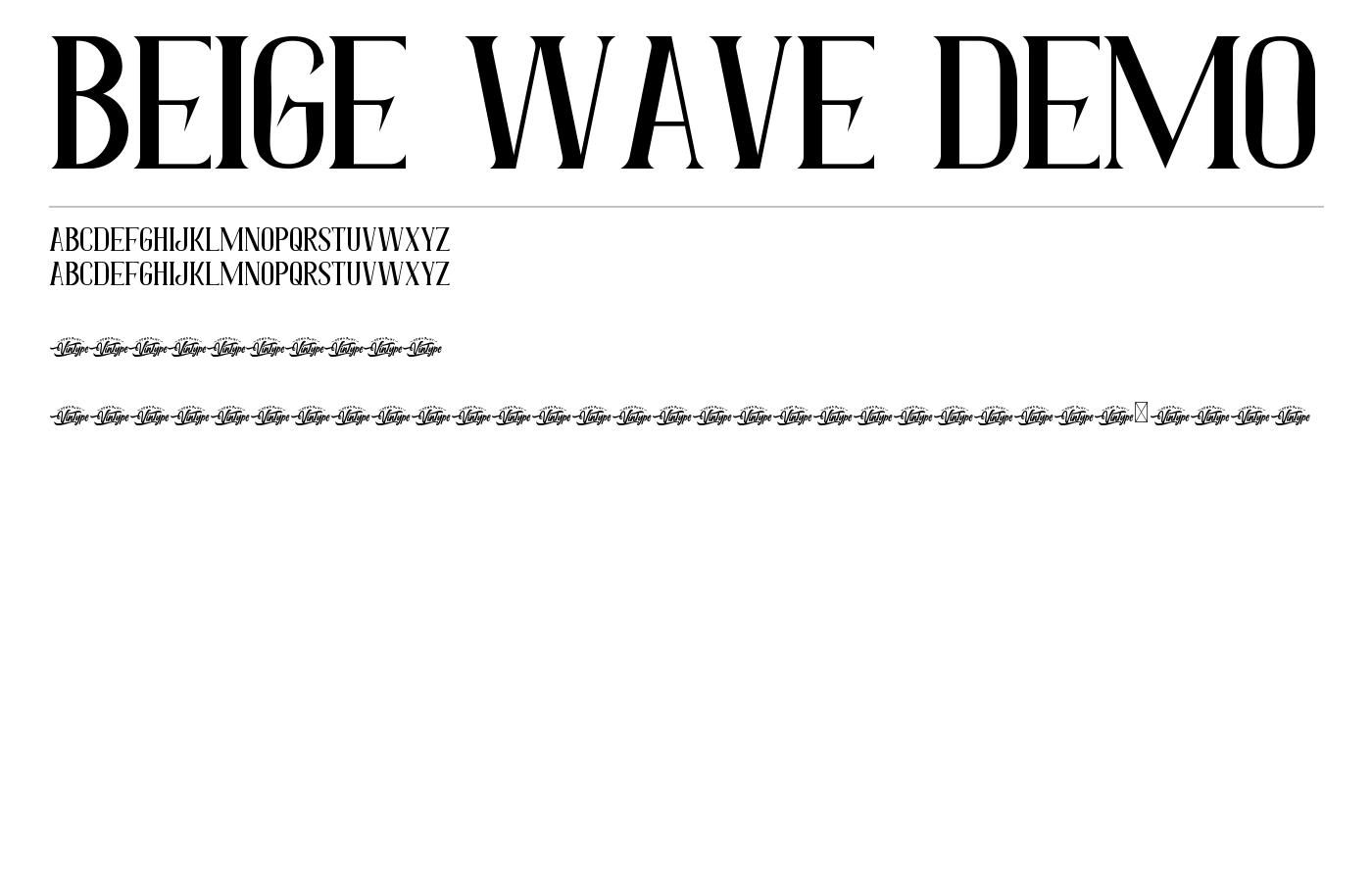
Beige Wave Demo is a striking serif font characterized by its tall, narrow letterforms and high contrast between thick and thin strokes. Its elegant, modern style with sharp, delicate serifs makes it ideal for luxury branding, fashion editorials, and sophisticated headlines where a refined yet bold statement is desired. This font’s unique design lends a sense of exclusivity and artistic flair, perfect for upscale and creative projects.
Beige Wave Demo Font
About Beige Wave Demo Font
| Font family | Beige Wave Demo Font |
| Designer | Shalsha & Sarah SP |